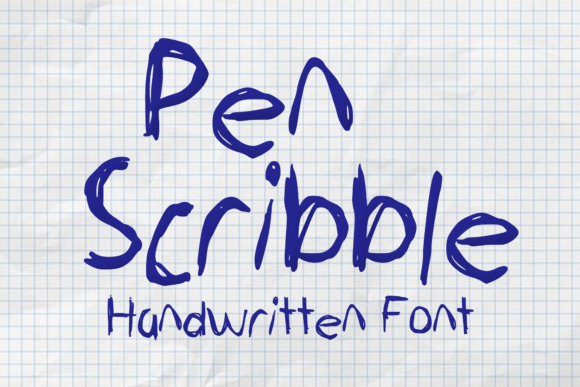
Pen Scribble Font
Pen Scribble is a fun childish-looking scribble font made with a natural pen on paper. You can use it for anything ranging from regular typing notes, to t-shirts, kids’ book designs, greeting cards, stickers, posters, or anything that needs a casual touch. Fall in love with its incredible style and use it to create lovely designs!